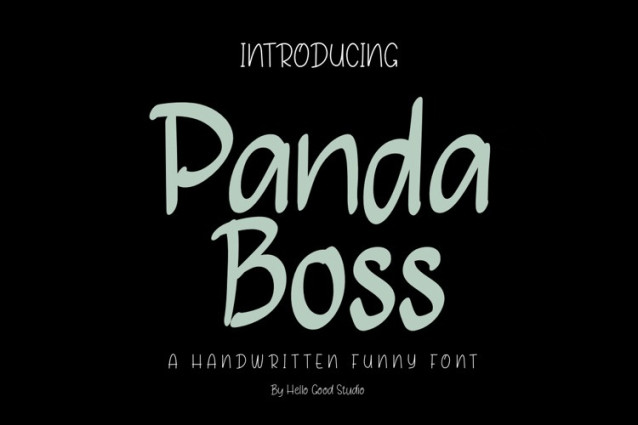
Panda Boss Font
Panda Boss Font a sweet and friendly handwritten font. Cute and fun, this font is ideal for writing wedding invitations, cards, or any other design that might need a fun touch!